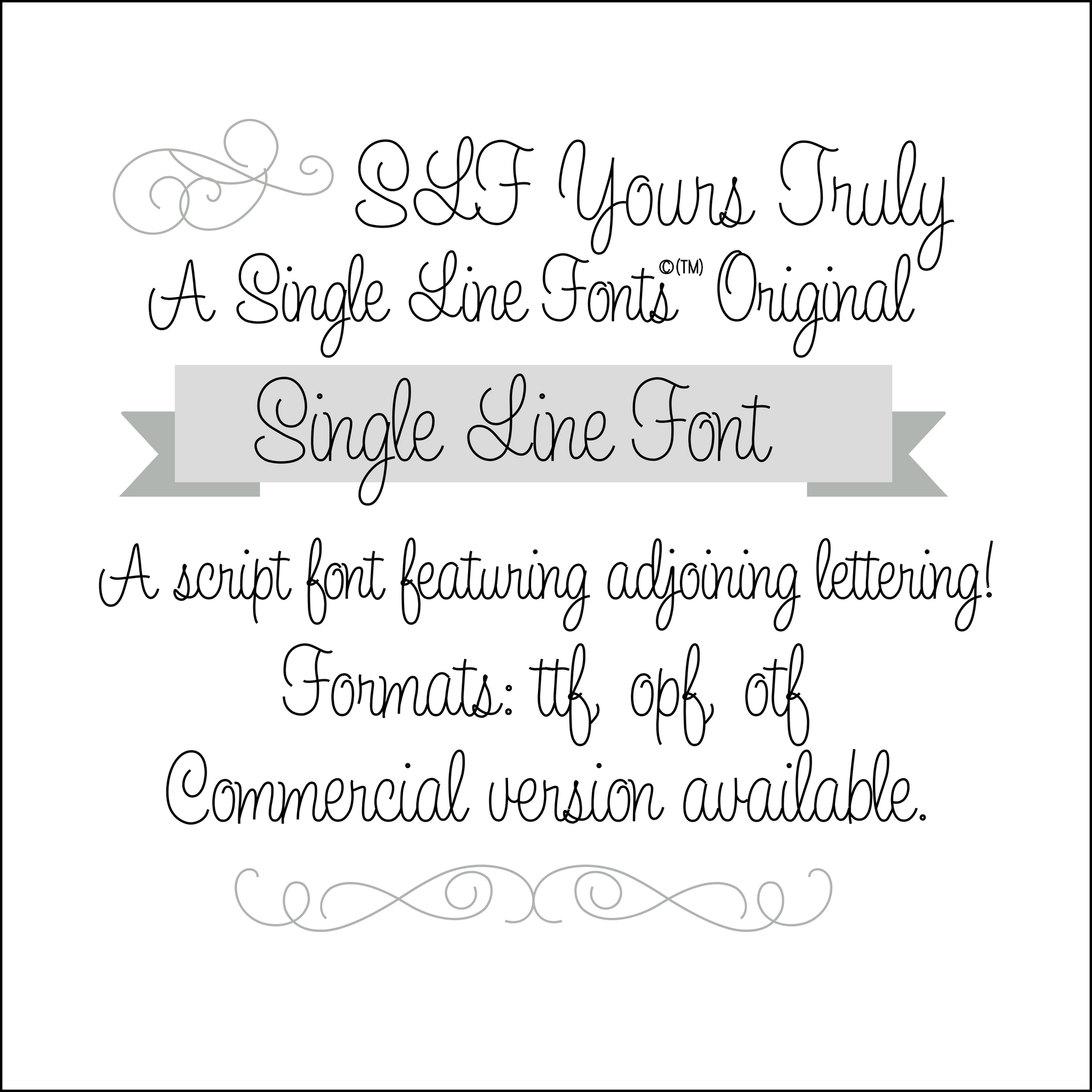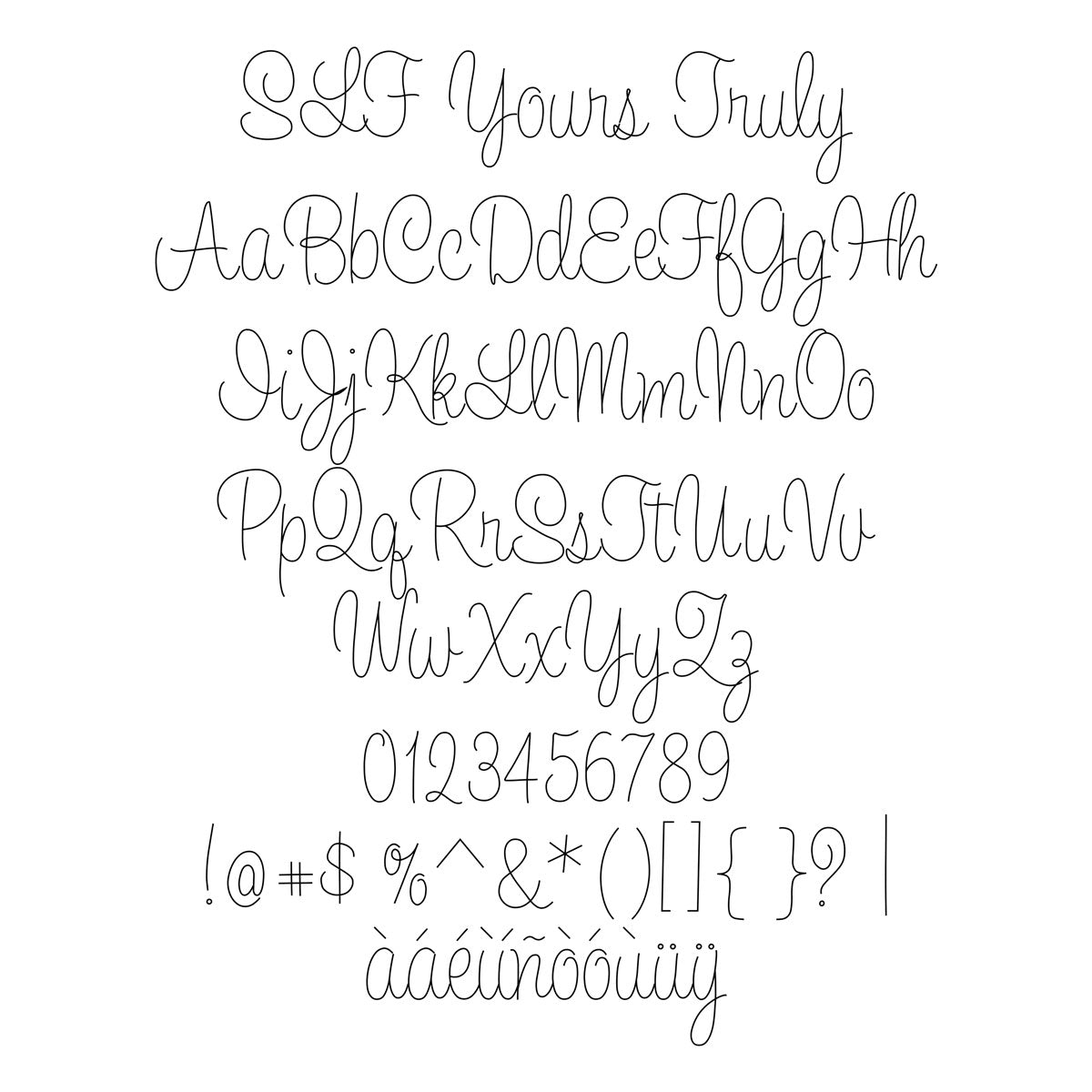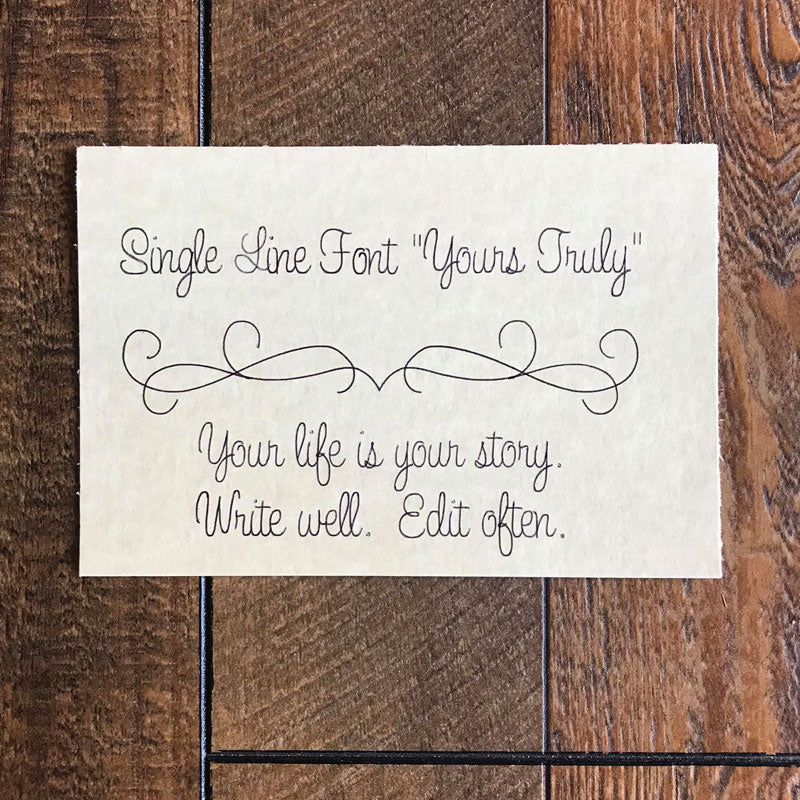
Single Line Font "SLF Yours Truly"
Yours Truly
This single line script font has a dressy-but-not-over-dressy look; perfect for things such as invitations, thank you cards, and wedding stationery.